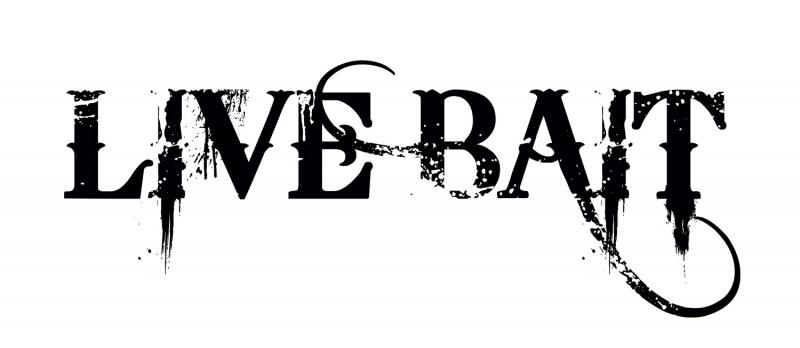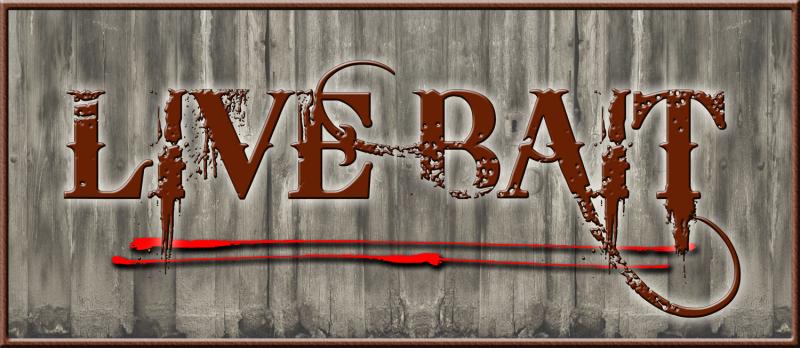
Font ID Please
Ok, this is Bleeding Cowboy font. I am looking for a clean, standard version of this font. Please notice the tops of the B and A. Any suggestions would be great.